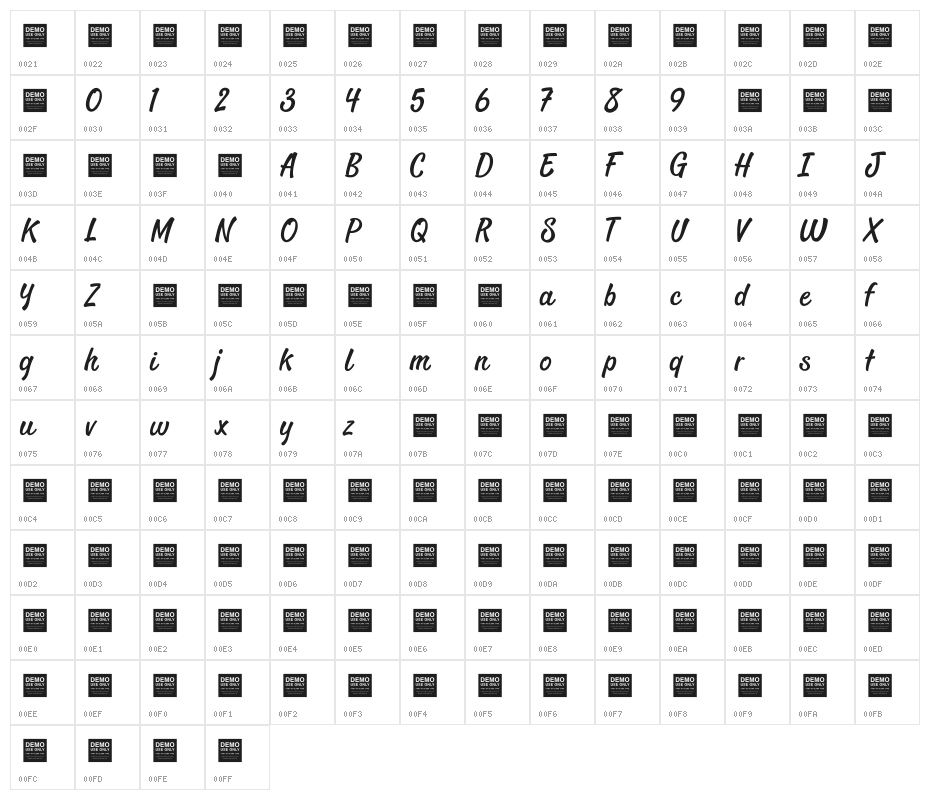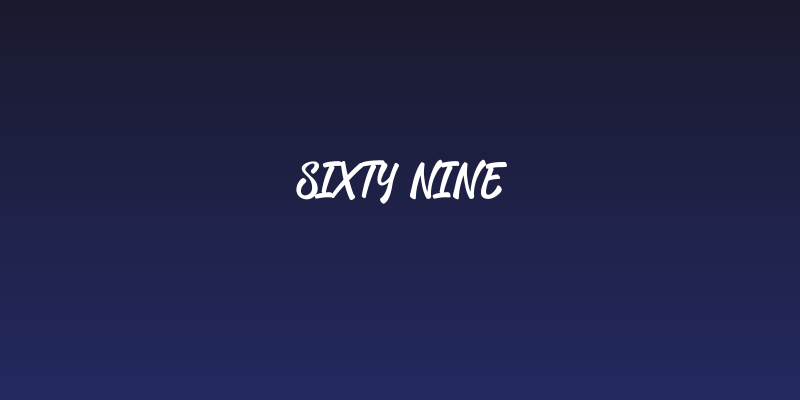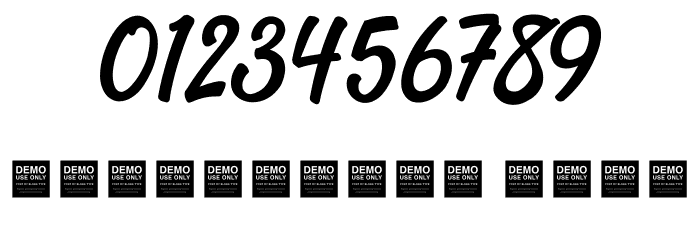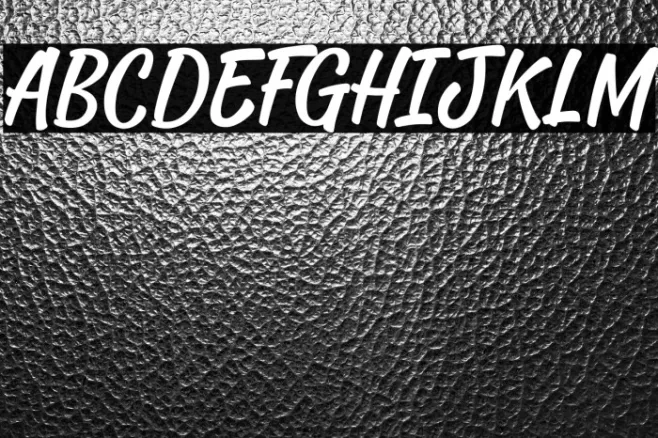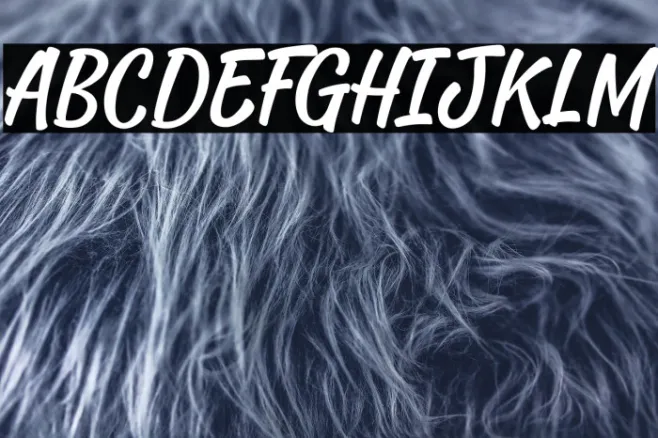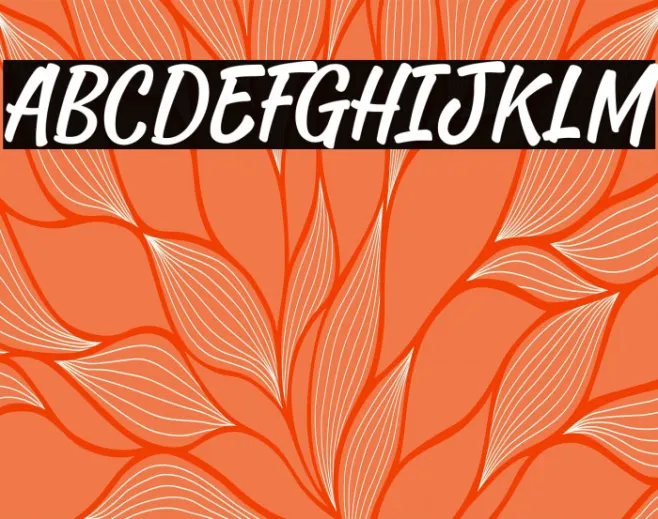
Sixty Nine Font
Sixty Nine Description
This font features a dynamic and energetic script style, characterized by its fluid, cursive strokes that convey a sense of movement and elegance. The uppercase letters are bold and slightly slanted, giving them a lively appearance, while the lowercase letters maintain a consistent flow with smooth connections between characters. The numerals are rounded and maintain the same energetic style, ensuring uniformity across the font. The overall design is modern yet retains a classic script charm, making it versatile for various design applications.